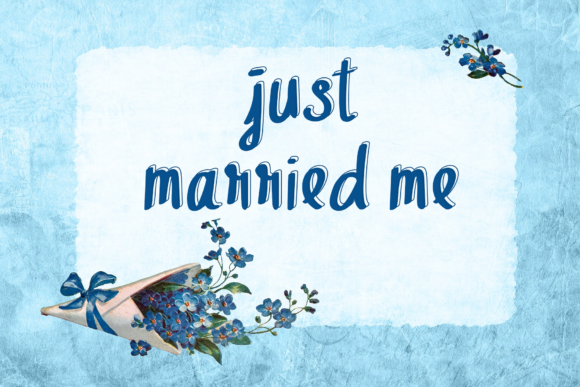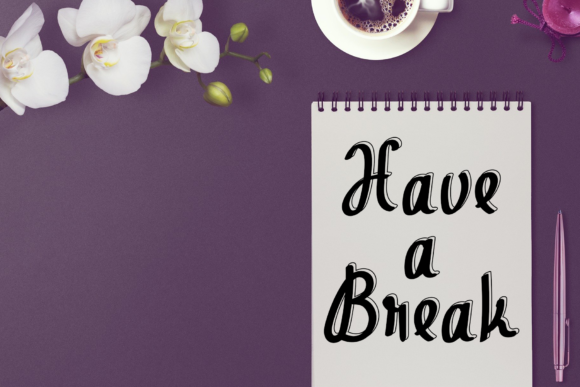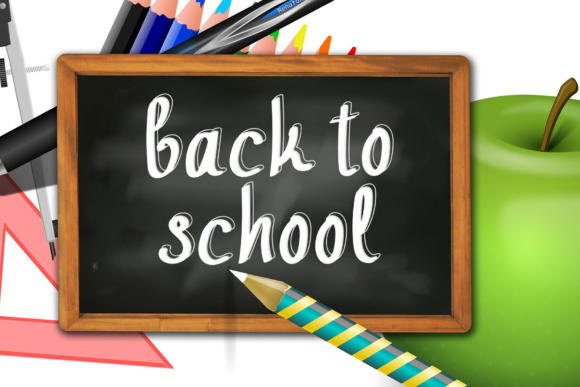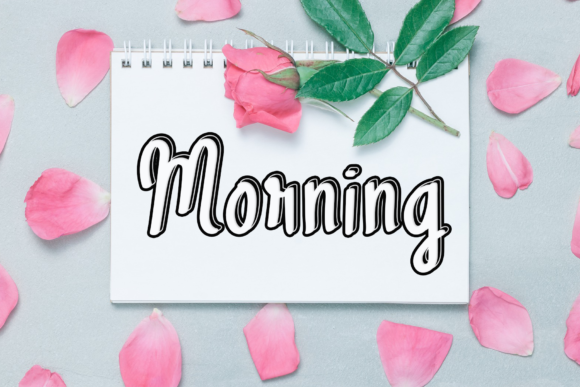
Valentine Memories Font
About Valentine Memories Font
Valentine Memories is a font that exudes uniqueness and elegance in its beautiful handwritten style. Its distinctive charm makes it the ideal choice for adding an adventurous and authentic feel to your next design idea.
With its elegant and handwritten appearance, Valentine Memories becomes a standout font that captures attention and leaves a lasting impression. Its expressive and well-crafted letters create a captivating visual experience that draws the eyes in, making it perfect for creating designs with a touch of sophistication and allure.
The unique handwritten style of Valentine Memories adds an authentic and personal touch to your designs, creating a warm and welcoming atmosphere for your audience. Each letter carries the beauty and grace of a handwritten note, making your work stand out with a touch of artistry and originality.
Embrace the adventurous and authentic feel of Valentine Memories and experience how it transforms your designs into captivating works of art. Its elegance and uniqueness add a sense of charm and sophistication, making your designs truly enchanting and memorable.
Discover the joy of creating with Valentine Memories as your trusted companion. Let its elegance and charm be the key to unlocking your creativity and infusing your work with a sense of adventure and refinement.
Whether you’re designing for personal projects or professional endeavors, Valentine Memories is the font that adds that extra touch of flair and allure to your creations. Embrace the unique charm of Valentine Memories and witness how it enhances the appeal and impact of your designs, making them truly special and unforgettable.
Let Valentine Memories be the font that sparks your inspiration and brings a touch of adventure and authenticity to your designs. Experience the magic of Valentine Memories and witness how it elevates your creative projects, making them truly exceptional and inspiring.